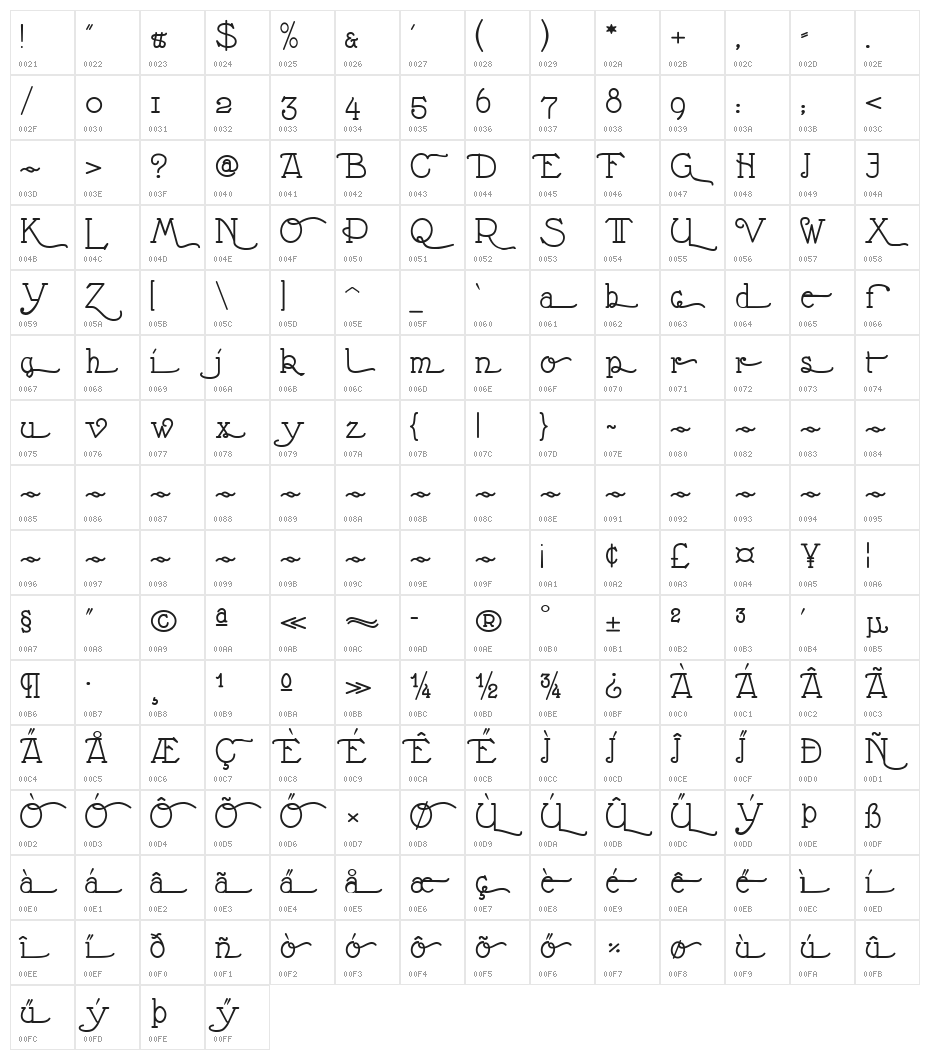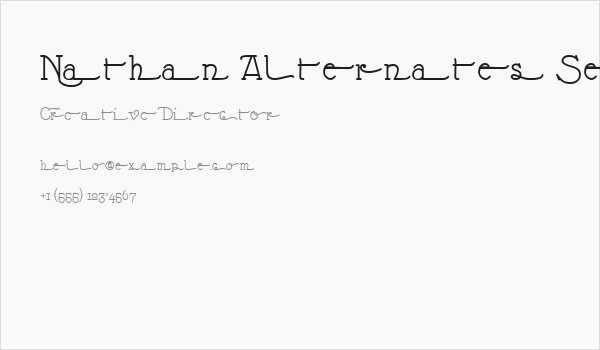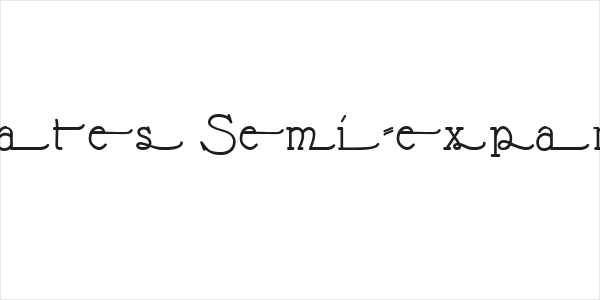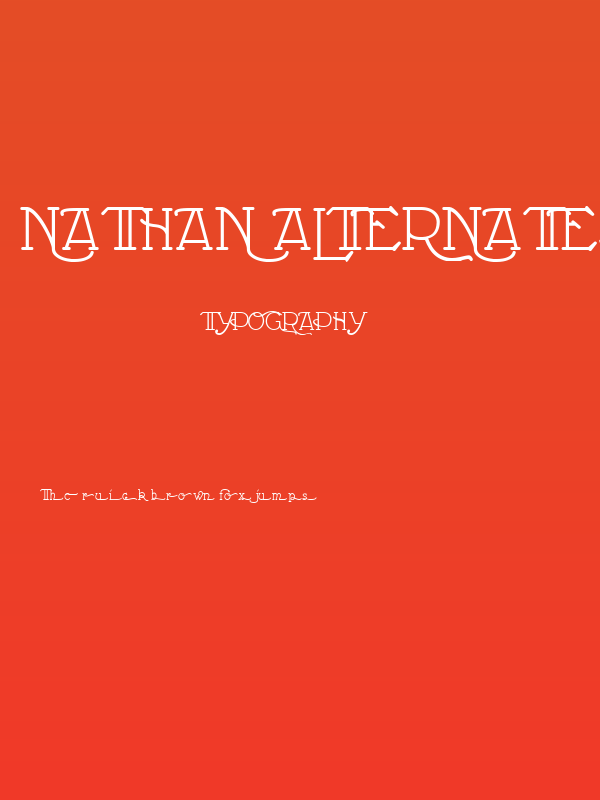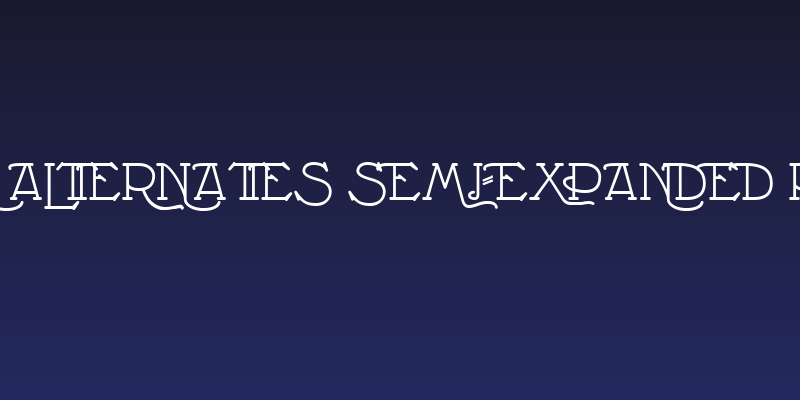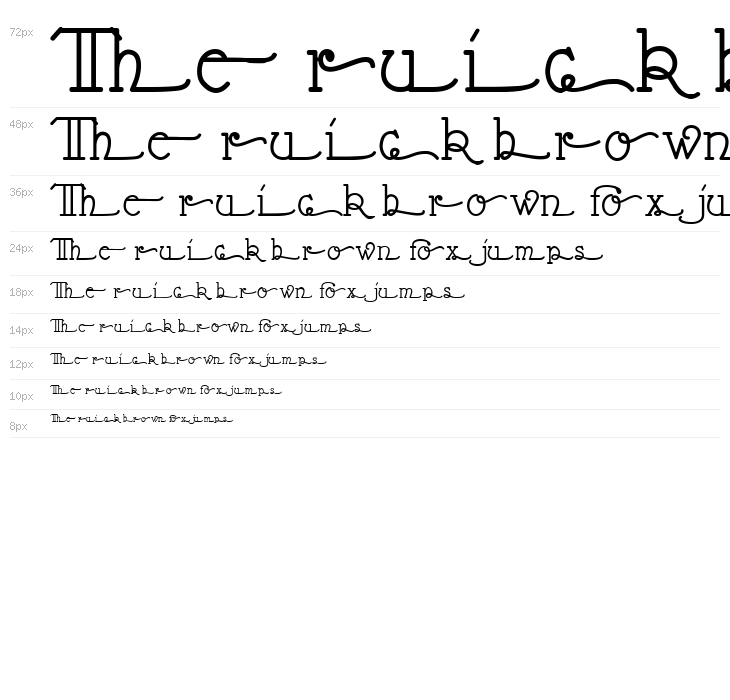
Nathan Alternates Semi-expanded Regular Font
Nathan Alternates Semi-expanded Regular Description
This font features a unique and artistic design with a playful and whimsical flair. The uppercase letters are characterized by decorative swashes and curls, adding a sense of movement and elegance. The lowercase letters maintain a similar style, with some characters featuring extended strokes that enhance the font's creative appearance. The numerals are bold and distinct, ensuring readability while maintaining the overall artistic theme. Special characters are designed with the same attention to detail, making them visually cohesive with the rest of the font. This font is ideal for projects that require a touch of creativity and individuality.
| Use Case | Headlines, Logos, Artistic designs |
| Proposed Projects | Ideal for creative projects such as invitations, posters, branding, and artistic designs. |